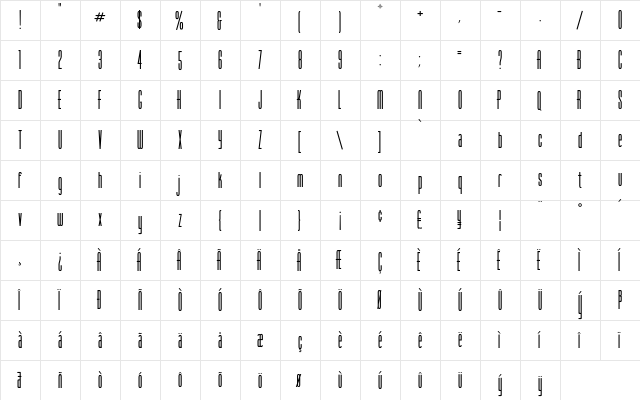
VarickaLC Regular
| Version | Version 1.000 02/13/2010 Based on 'Varick'. From "Decorative Condensed Alphabets", by Dan Solo, Page 94. The lower case has been newly created |
Design Context for VarickaLC Typeface
VarickaLC is a composed and adaptable typeface that performs quietly and consistently across a wide range of design contexts.